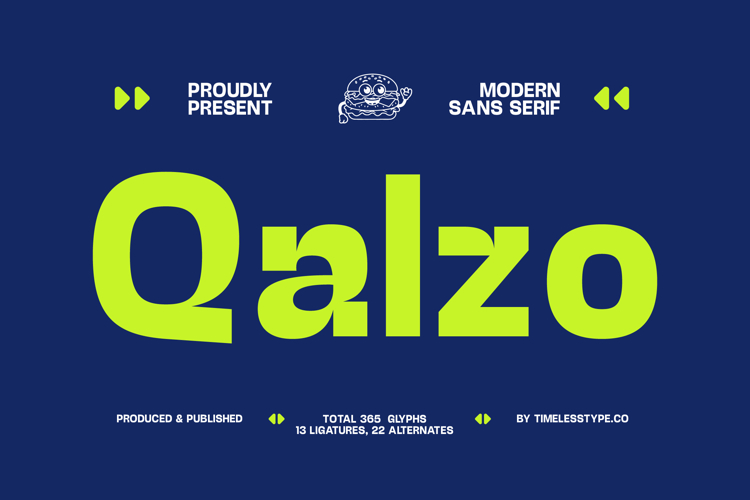
Qalzo - Elegant Sans Serif Font
Qalzo - Elegant Sans Serif Font delivers a sophisticated, modern sans serif aesthetic that instantly commands attention. Its meticulously crafted clean lines and balanced letterforms exude a refined professionalism, embodying premium quality and contemporary design. This font is engineered for both visual impact and exceptional readability, making it an indispensable asset for discerning designers.
Discover the perfect blend of style and functional versatility.
Designed with meticulous attention to detail, Qalzo - Elegant Sans Serif Font features crisp edges and harmonious proportions that contribute to its distinctive character. It offers remarkable versatility, performing brilliantly whether employed for bold, impactful headlines or subtle, readable body text. The inherent elegance of its structure ensures your message is conveyed with authority and grace across all mediums.
Unleash your brand's global potential with seamless integration.
With its extensive multilingual support, Qalzo - Elegant Sans Serif Font adapts seamlessly across global markets, making it incredibly versatile for international projects. This comprehensive character set ensures your message resonates clearly with diverse audiences worldwide, establishing a consistent and professional brand identity no matter the language. It truly embodies global adaptability for modern communication.